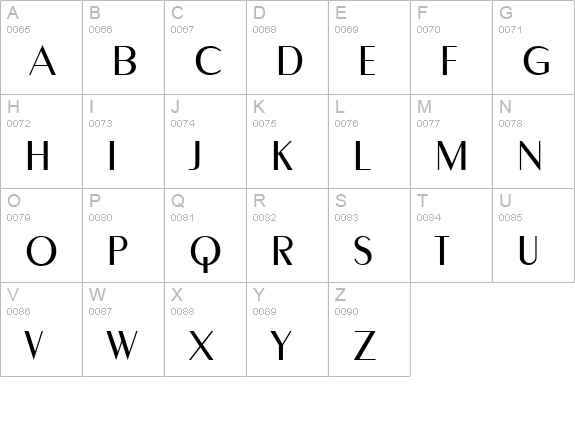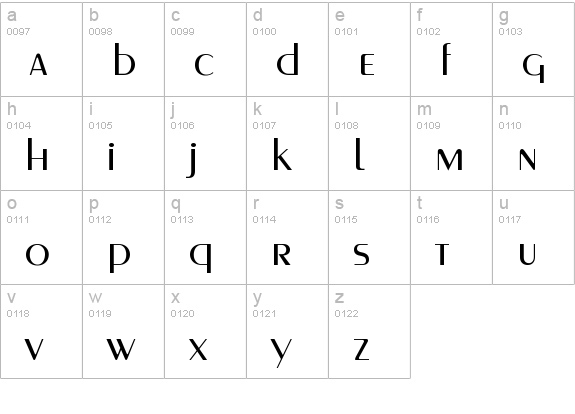
Greyhound-Regular is the standard, neutral variant in the Greyhound typeface family \xE2\x80\x94 well suited to general body text, paragraphs, and standard typographic work.
Greyhound-Regular is a sleek and modern typeface that exudes elegance and sophistication. Its clean lines and balanced proportions make it versatile for a wide range of design projects, from branding to editorial layouts. The font's clarity and readability ensure that your message will always come across with clarity and impact. What's even better is that Greyhound-Regular is available for free download at FontsMarket.com. This means you can access this high-quality font without spending a penny, making it a valuable addition to your font library. Don't miss out on the opportunity to elevate your designs with Greyhound-Regular - download it for free today!